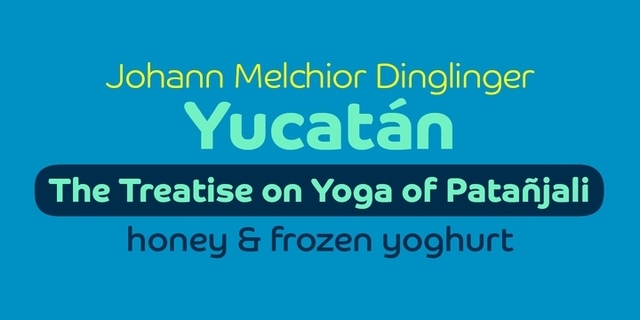
Co Font
Co Font is perfect for minimalist branding, modern user interfaces, contemporary web design, clean corporate communications, startup company materials, tech product packaging, digital applications, architectural presentations, modern signage systems, progressive marketing campaigns, sleek business cards, and streamlined projects that require clean, efficient typography with contemporary sophistication and minimal aesthetic appeal.
What makes Co Font so exciting is its pure minimalist elegance and contemporary efficiency that embodies the essential principles of modern design with its emphasis on clarity, functionality, and visual simplicity. This typeface features clean, geometric letterforms with optimized proportions and reduced visual noise that creates an immediate sense of modernity, professionalism, and design confidence. The font's minimalist character and contemporary appeal make it perfect for brands and projects that want to communicate innovation, efficiency, and the kind of forward-thinking approach that defines modern digital culture.
Co Font typically comes in multiple weights and styles including Thin, Light, Regular, Medium, Bold, and Black variations. Many versions also include condensed widths, extended character sets, and contemporary symbols that enhance the font's modern functionality and provide designers with comprehensive tools for creating clean, systematic typography compositions that embody minimalist design principles.
Streamline your design with the modern efficiency of Co Font Free Download. This contemporary typeface brings together minimalist design principles with maximum functionality, making it an essential tool for modern brands and digital-first companies that need to create memorable, efficient communications that resonate with audiences seeking clean, contemporary design solutions. The font's streamlined character ensures your projects will convey innovation and design sophistication.
Whether you're designing digital interfaces, contemporary branding, or modern corporate materials, Co Font delivers exceptional clarity and minimalist appeal that connects with audiences who appreciate clean design and functional efficiency. Its systematic approach works beautifully across both digital and print applications, maintaining perfect legibility while expressing contemporary design values and professional competence.
The precisely engineered letterforms of Co Font showcase the ultimate expression of minimalist typography and contemporary design principles. Each character has been refined to its essential form while maintaining optimal readability and visual harmony, ensuring that your modern communications remain clean and efficient while delivering the sophisticated aesthetic that contemporary audiences expect from forward-thinking brands.